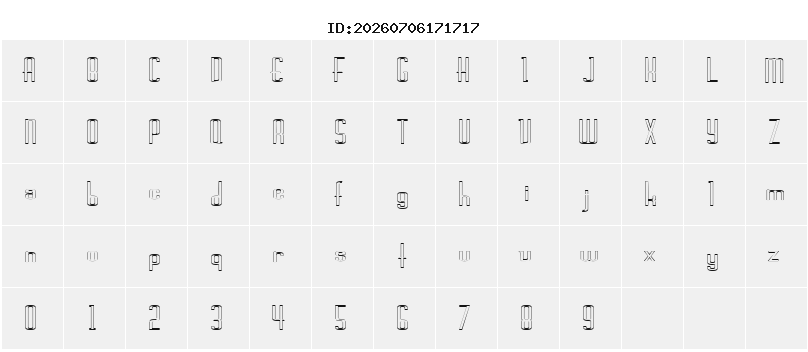
Devon-Hollow-Extended Preview
About Devon-Hollow-Extended.ttf
Devon-Hollow-Extended.ttf is a modern, elegant sans-serif font designed for ultimate readability and visual harmony. Perfect for branding, headlines, web design, and print materials.